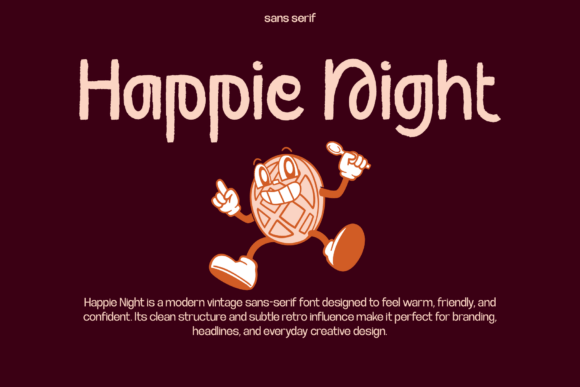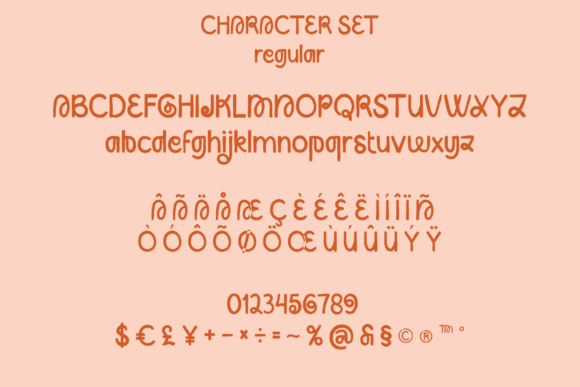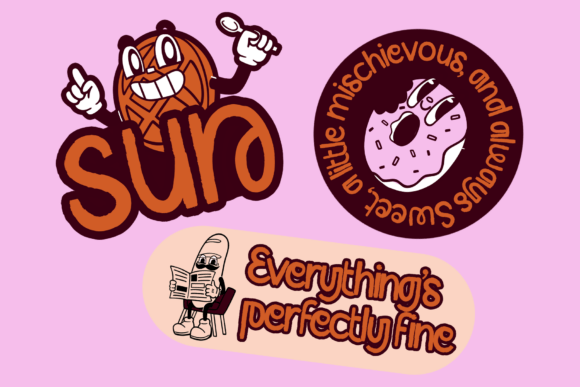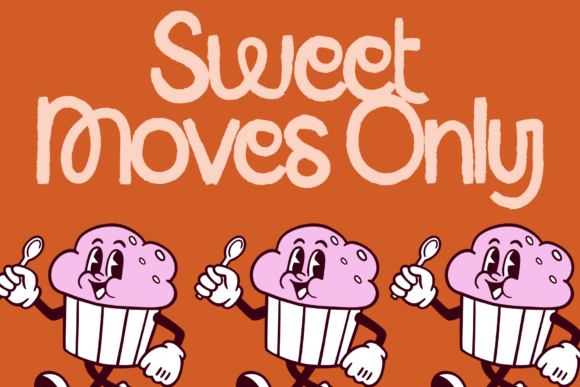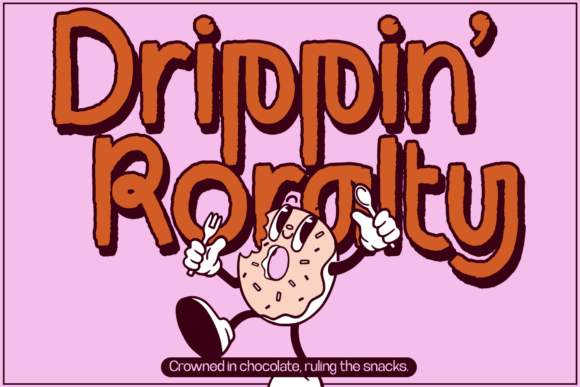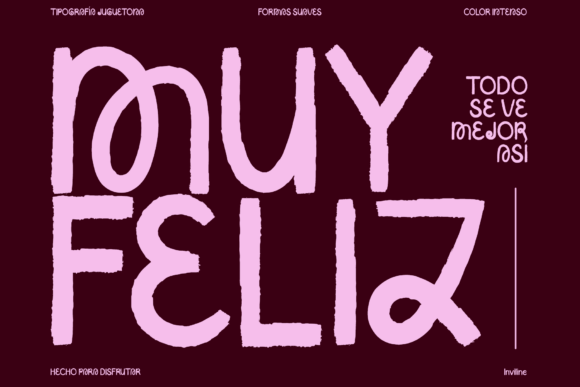
Introducing Happie Night Font: The Perfect Blend of Modern Vintage Charm
In the world of typography, fonts play a crucial role in conveying the tone and personality of a brand. If you’re looking for a font that exudes warmth, playfulness, and a touch of retro soul, look no further than Happie Night Font. This modern vintage sans-serif font is designed to bring a cheerful energy to your projects, making it perfect for designers and crafters who want to add a unique touch to their work.
The Characteristics of Happie Night Font
Happie Night Font boasts a bold charm that is both modern and vintage. Its clean strokes and quirky curves give it a textured, handmade feel that is sure to capture the attention of your audience. The font’s sans-serif design ensures that it remains clean and legible, while its bold lines and curves add a touch of playfulness. Whether you’re working on a branding project, food packaging, or social media content, Happie Night Font is the perfect choice.
One of the best things about Happie Night Font is its versatility. Its unique blend of modern and vintage elements makes it suitable for a wide range of projects, including:
- Branding: Create a lasting impression with a font that exudes warmth and friendliness.
- Food Packaging: Add a touch of whimsy to your labels and packaging with a font that is both playful and legible.
- Logotypes: Create a memorable logo that stands out from the crowd with Happie Night Font’s bold charm.
- Retro Ads: Take a step back in time with a font that is reminiscent of classic advertisements.
- Merch: Add a fun and friendly touch to your merchandise with a font that is sure to appeal to a wide range of audiences.
- Kids’ Apparel: Create adorable and playful designs for kids’ clothing with Happie Night Font.
- Café Menus: Add a touch of warmth and hospitality to your café menu with a font that is both modern and vintage.
- Social Media Content: Stand out on social media with a font that is sure to grab the attention of your followers.
Why Choose Happie Night Font?
- Unique and Eye-Catching: Happie Night Font is a one-of-a-kind font that is sure to grab the attention of your audience.
- Versatile: Its versatility makes it suitable for a wide range of projects and applications.
- Easy to Read: Despite its bold and playful design, Happie Night Font remains easy to read, even at smaller sizes.
- Handmade Feel: The font’s textured, handmade feel adds a touch of warmth and personality to your designs.
- Experiment with Colors: Happie Night Font looks great in a variety of colors, so don’t be afraid to experiment and find the perfect hue for your project.
- Mix and Match: Try pairing Happie Night Font with other fonts to create a unique and eye-catching design.
- Play with Size: Happie Night Font looks great at a variety of sizes, so experiment with different sizes to find the perfect fit for your project.
In conclusion, Happie Night Font is a modern vintage sans-serif font that is perfect for designers and crafters who want to add a touch of warmth and playfulness to their projects. Its unique blend of clean strokes, quirky curves, and textured, handmade feel makes it suitable for a wide range of applications, from branding and food packaging to social media content and kids’ apparel. With its bold charm and retro soul, Happie Night Font is sure to bring a cheerful energy to your designs.